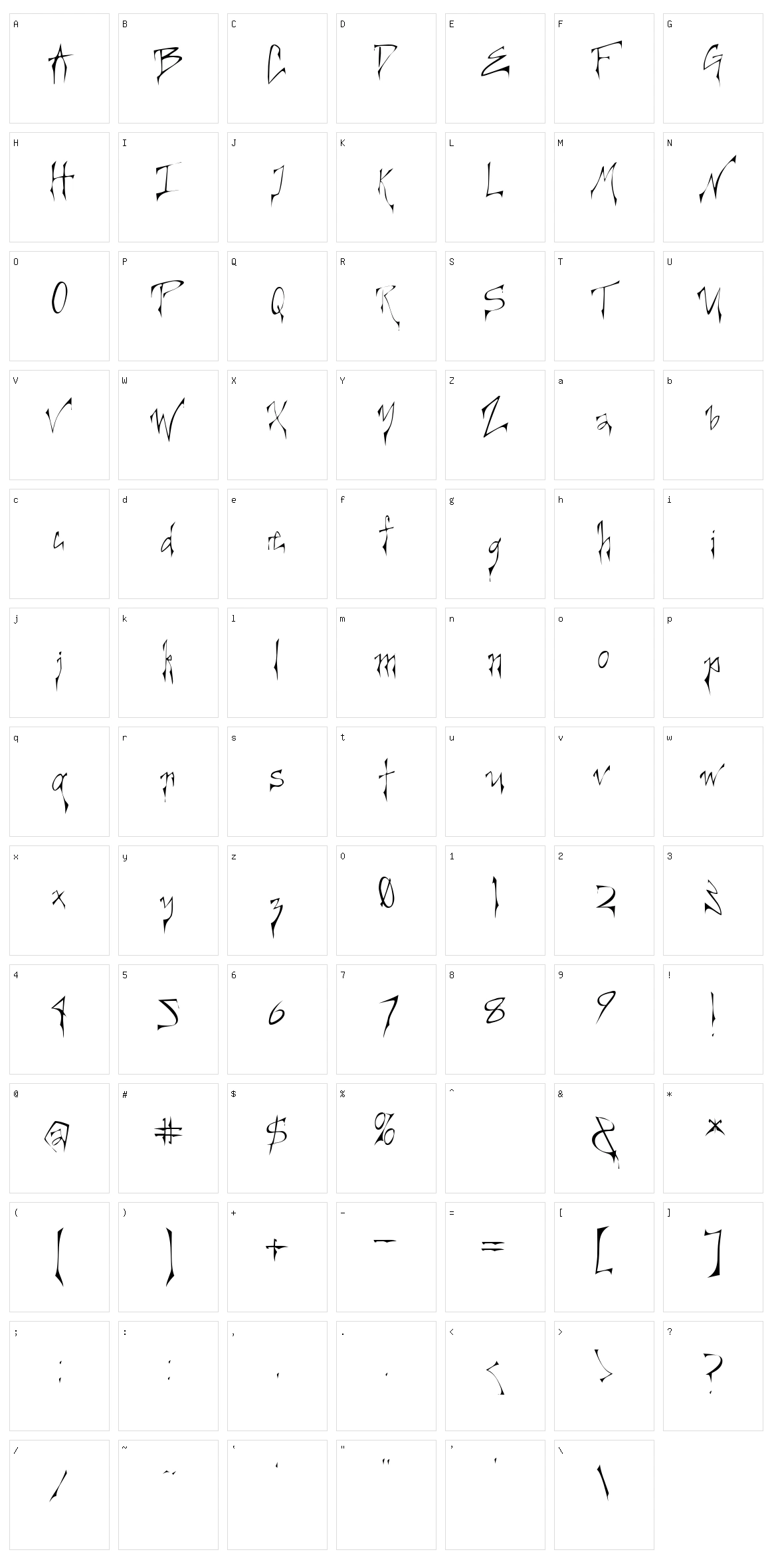
The free font Creepygirl is carefully designed by Kiwi Media, showcasing a thoughtful balance of creativity and usability and falls under the Horror font style. When you download the ZIP file, it contains only 74.54 KB of font files, making it lightweight and quick to download. Please review the license details below to understand permitted usage and distribution rights. If license information is not available, we recommend using this font for personal projects only or contacting the author directly for commercial usage permissions.